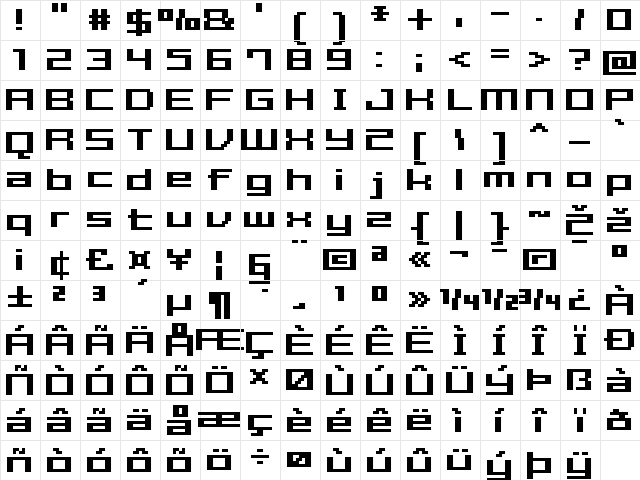
FFF Estudio Bold Extended Regular
| Foundry | Fonts For Flash |
| Designer | Fonts For Flash |
Design Context for FFF Estudio Bold Extended Typeface
FFF Estudio Bold Extended takes a measured approach to typography — its balanced proportions and neutral character make it a reliable workhorse for both digital and print work. Its bold stroke weight gives it real presence on the page.